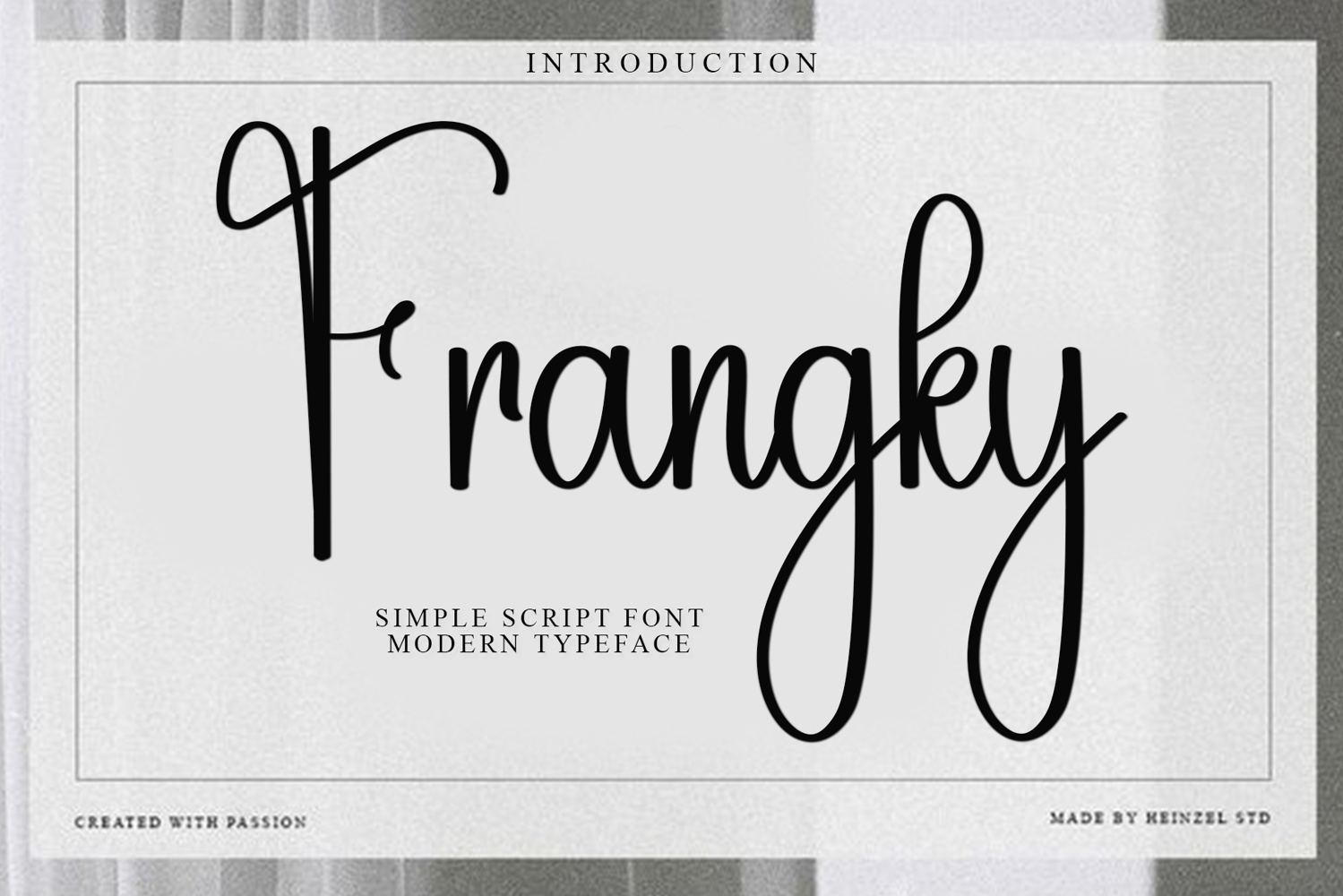
Frangky
Frangky is a beautiful and eye-catching font designed with a soft, unique touch. Its distinctive strokes give it a special character, making it meaningful and versatile for future use. With various characters, it’s perfect for design projects, crafts, and other creative works.